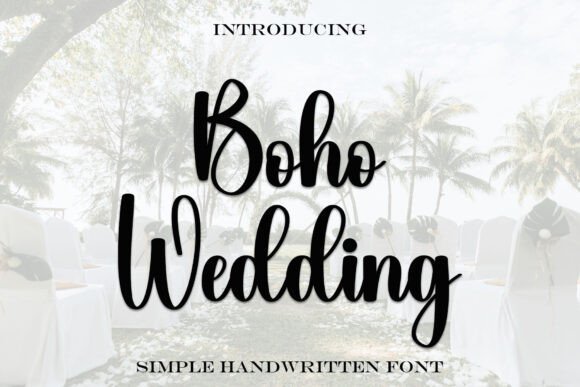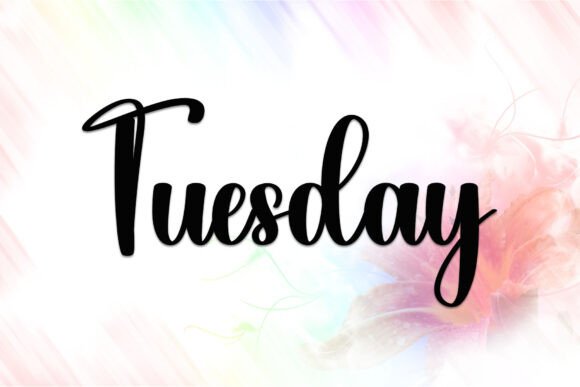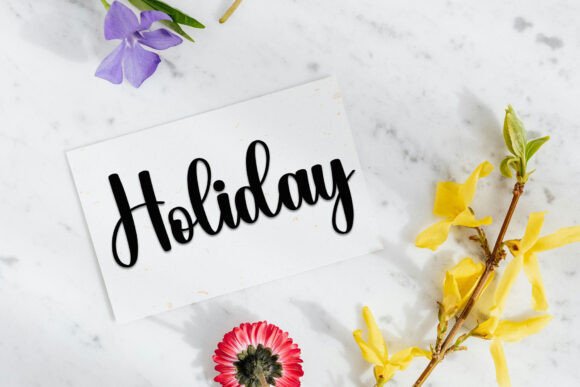
Boho Wedding Font
About the Boho Wedding Font
Meet Boho Wedding Font, a stunning font that brings a touch of elegance and professionalism to any design. Boho Wedding is a neat and beautiful handwritten font described by an elegant touch, perfect for your favorite projects
Fall in love with its incredibly distinct and timeless style, and use it to create spectacular designs!
Boho Wedding’s elegant, handwritten style is ideal for projects requiring a touch of rustic charm and sophistication. It excels in headlines, wedding invitations, short quotes on social media, or branding elements for businesses focusing on handcrafted goods, artisan products, or boutique services. Avoid using it for large blocks of body text or UI elements where readability is paramount.
Its delicate yet distinct letterforms are best complemented by pairing it with a clean sans-serif font like Lato or Montserrat for body text, creating a balanced contrast. For a more traditional feel, consider pairing it with a serif font like Playfair Display for a sophisticated look. Avoid pairing it with overly bold or geometric sans-serifs, which would clash with its organic quality.
The font projects a friendly, romantic, and slightly whimsical personality, making it perfectly suited to brands that value authenticity and a handcrafted aesthetic.
Boho Wedding Font Usage Examples
Boho Wedding Font Example